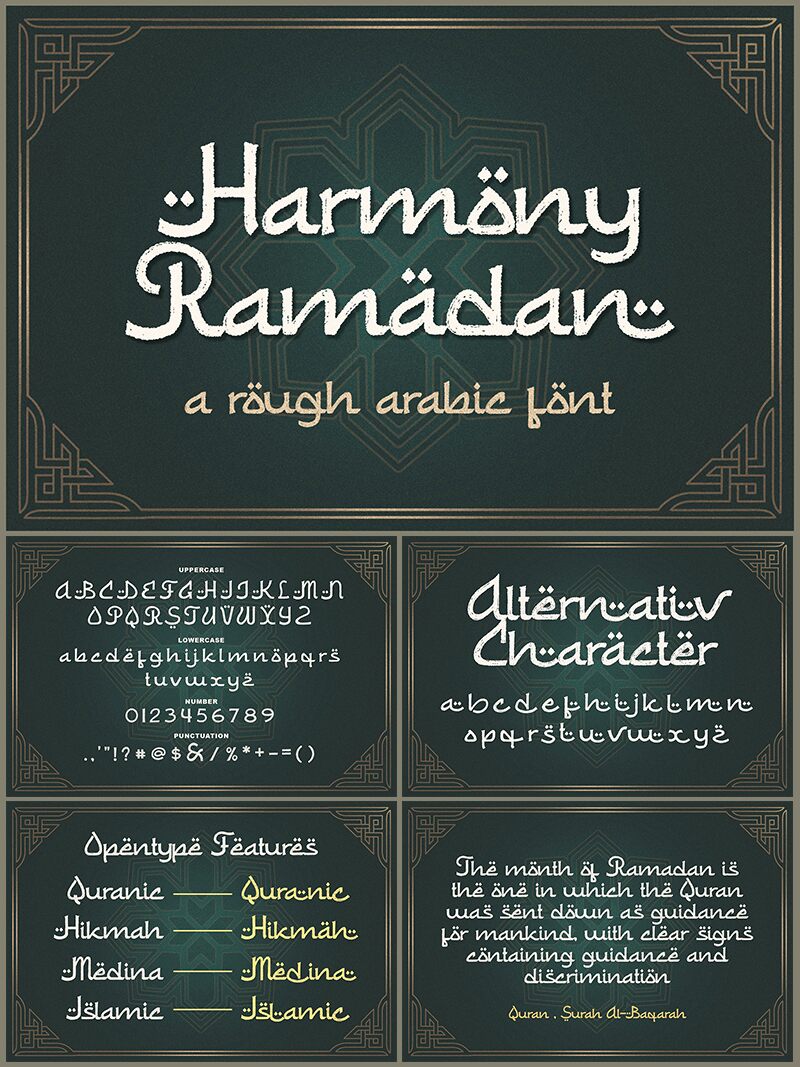
Harmony Ramadan font by Blankids is a free decorative Arabic-style display font. Built for festive moments, it threads soft monoline strokes with rounded terminals, crescent-like dots, and gentle swashes that echo Arabic calligraphy while staying easy to read in Latin. The rhythm is steady, the curves feel inky and warm, and the subtle tilt gives headlines a welcoming glow.
Using Harmony Ramadan, your holiday posters, Eid greeting cards, social media banners, event invitations, product packaging, and storefront signage gain instant cultural resonance without sacrificing clarity. This free font shines in large sizes where its looping forms can breathe; pair it with a simple sans-serif for body copy to keep layouts crisp and balanced.